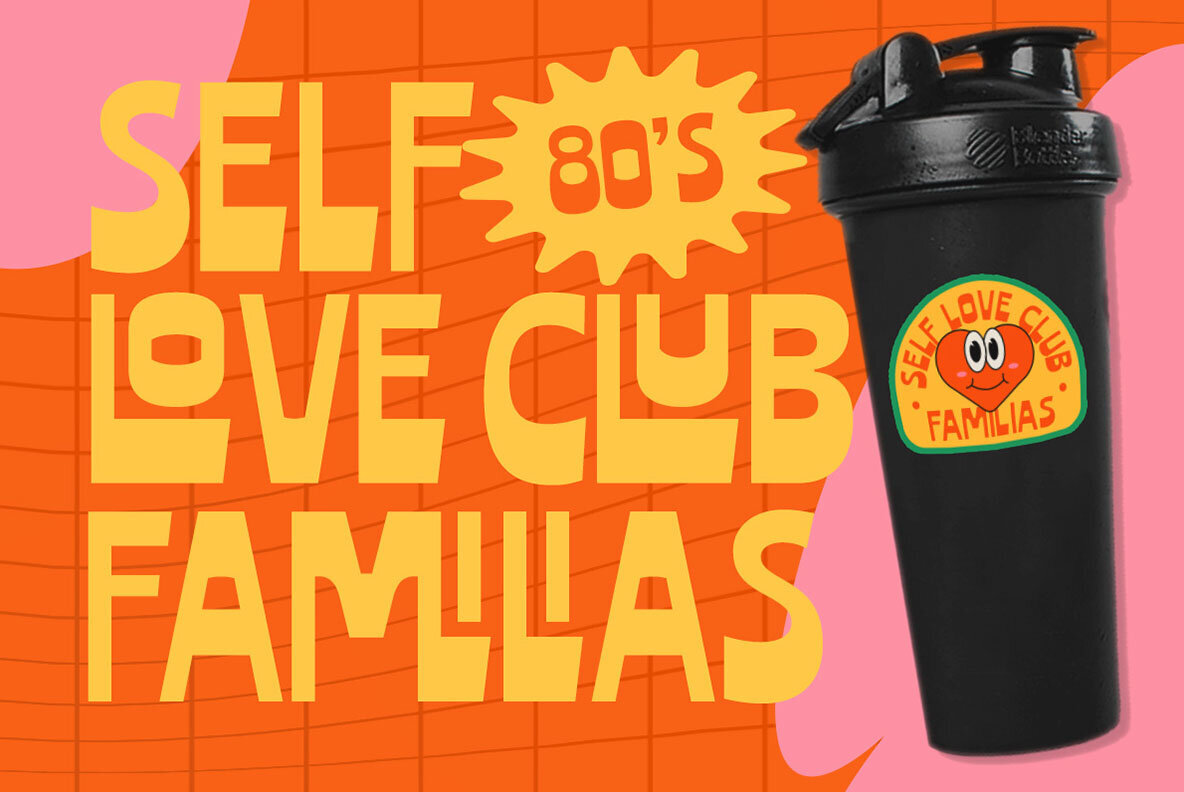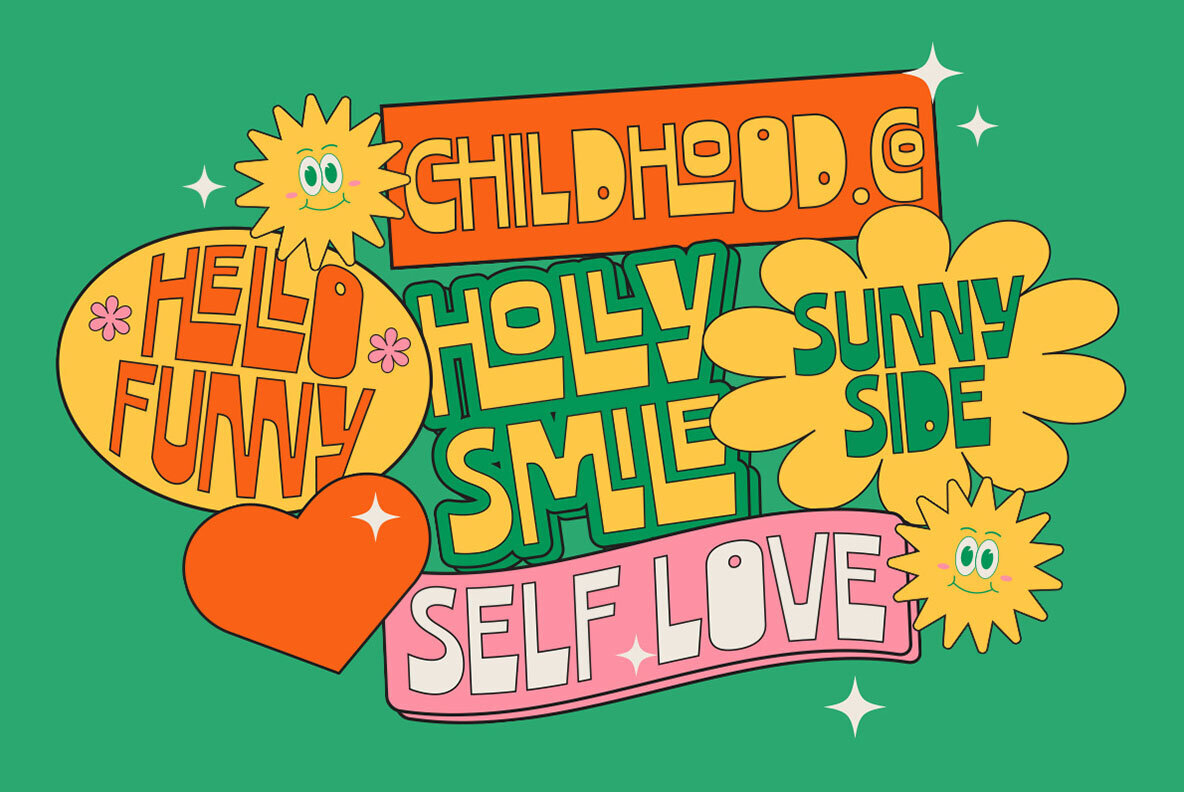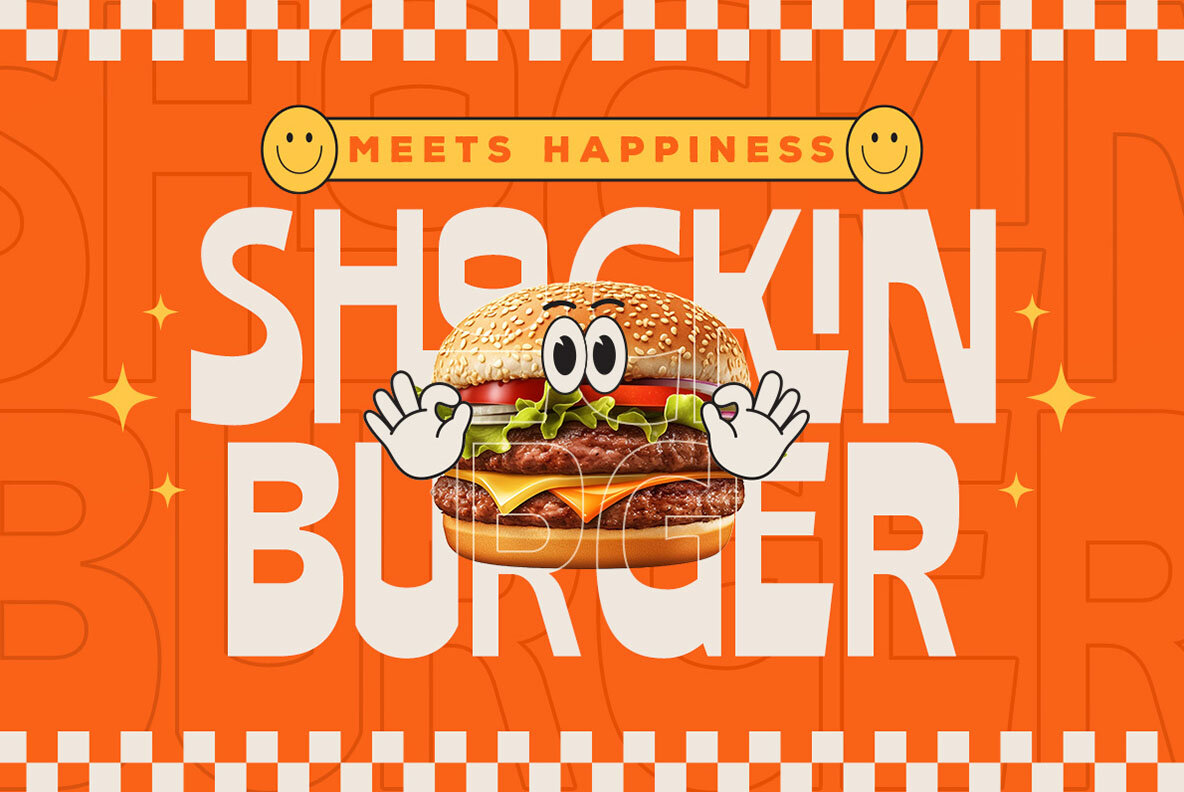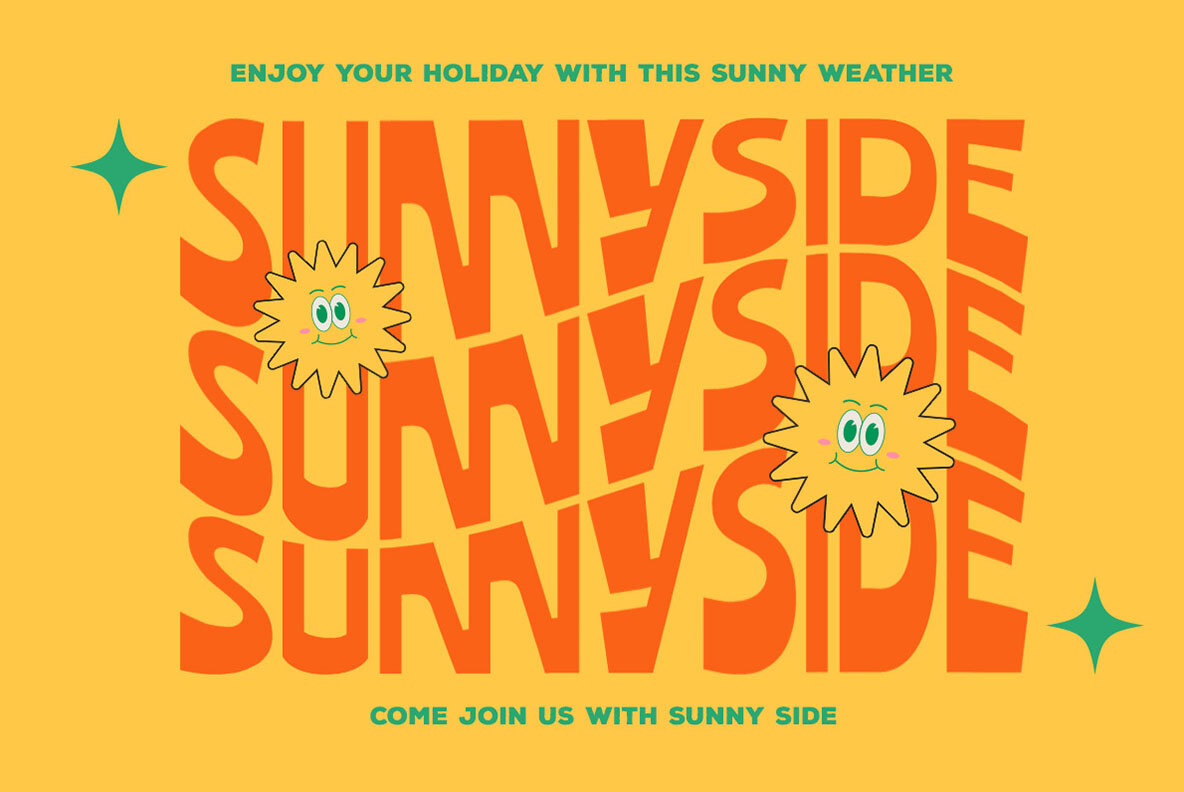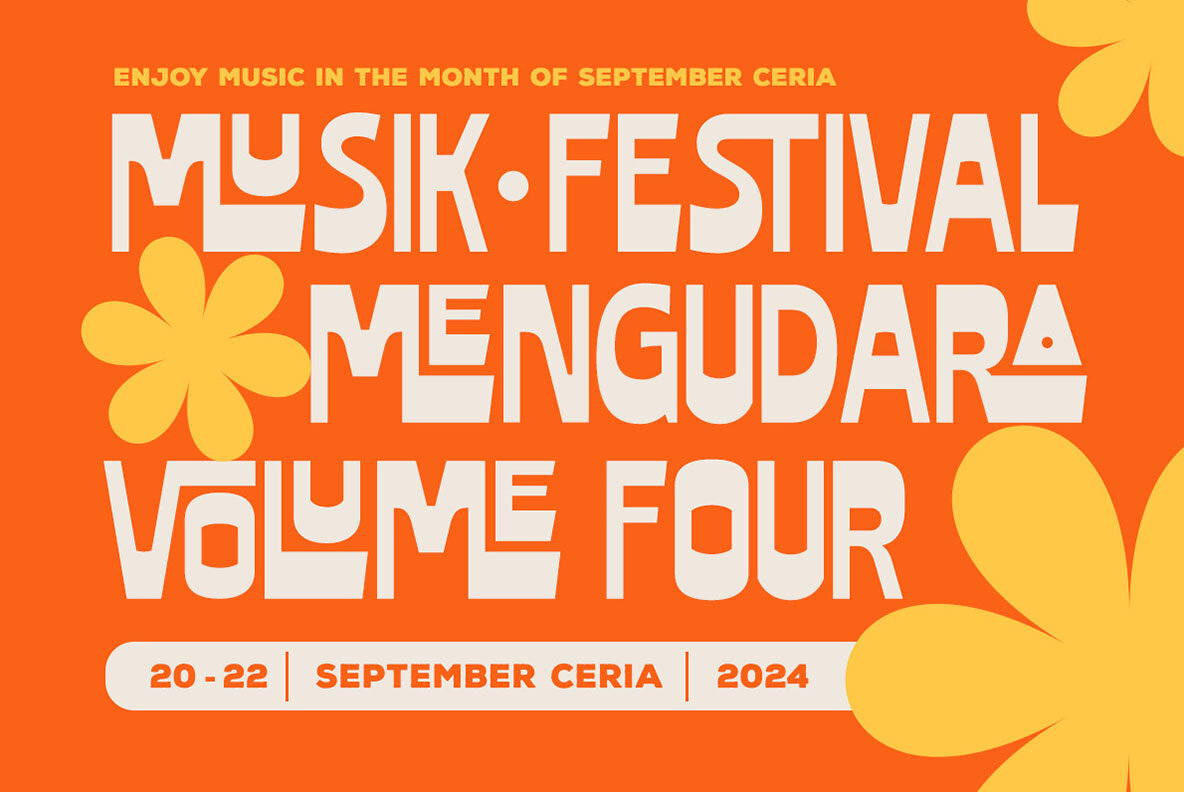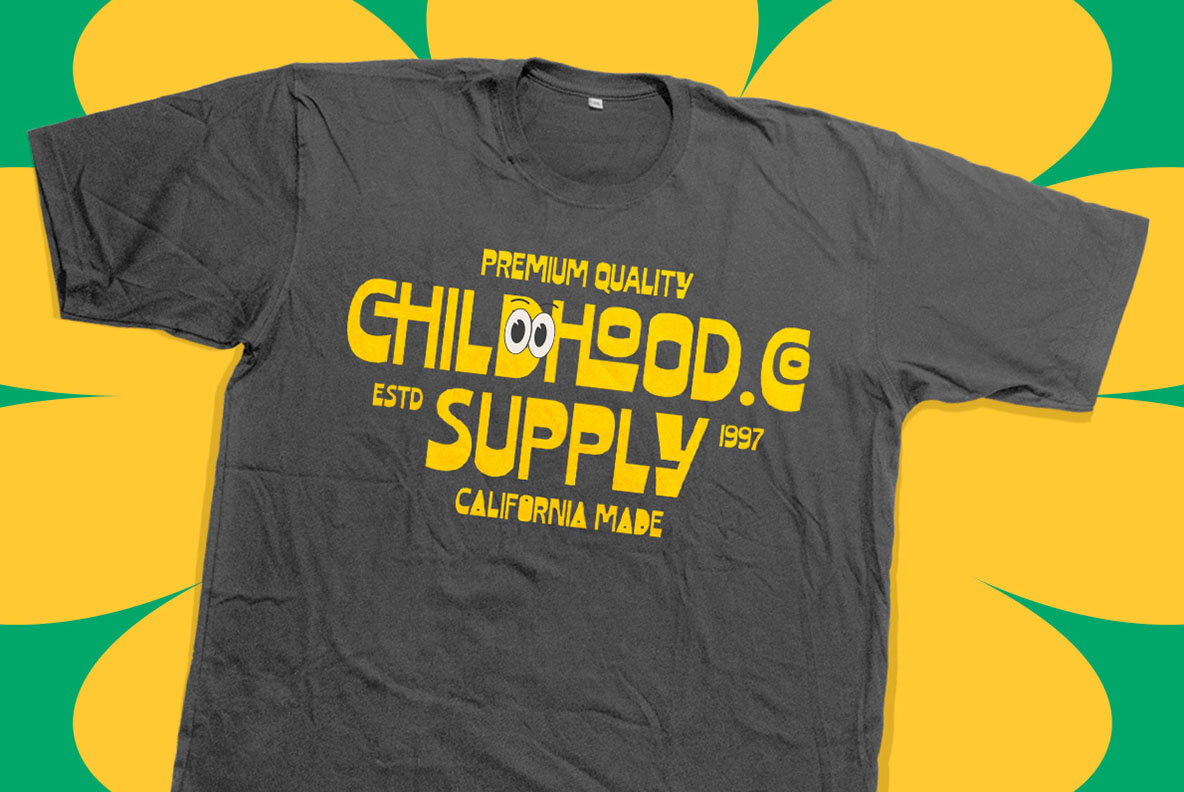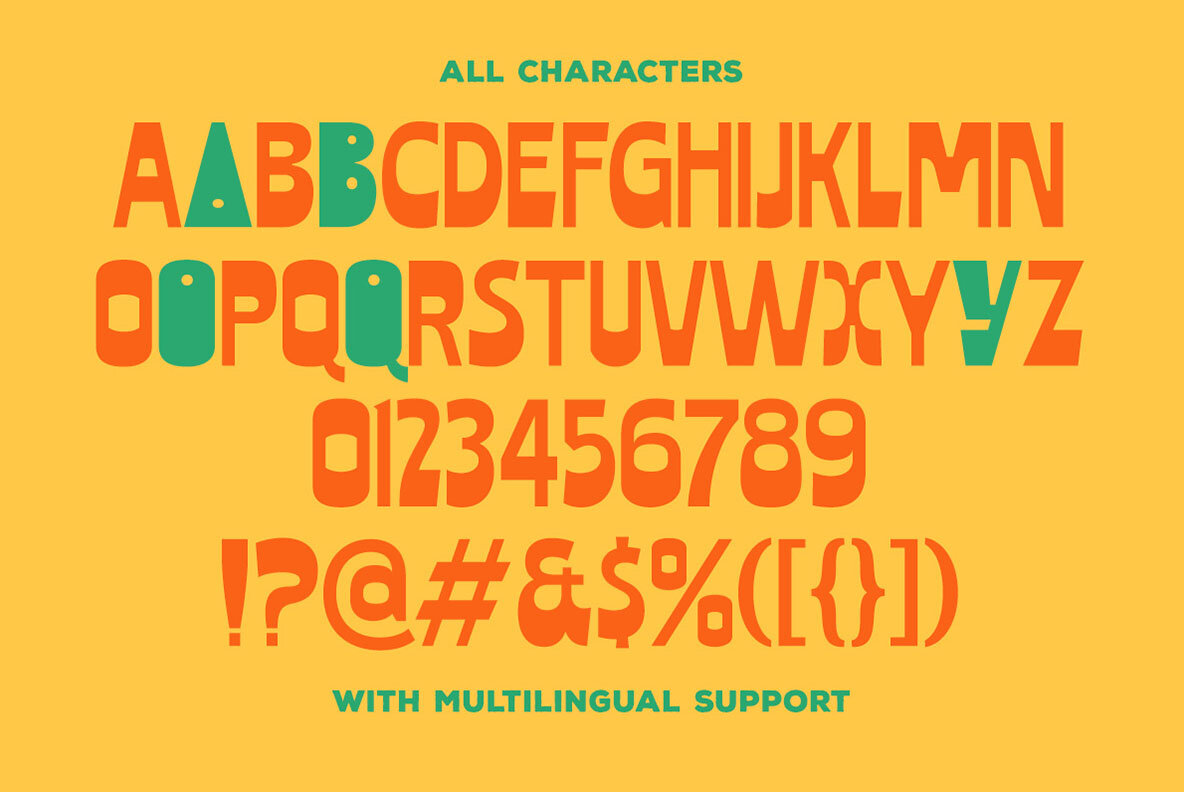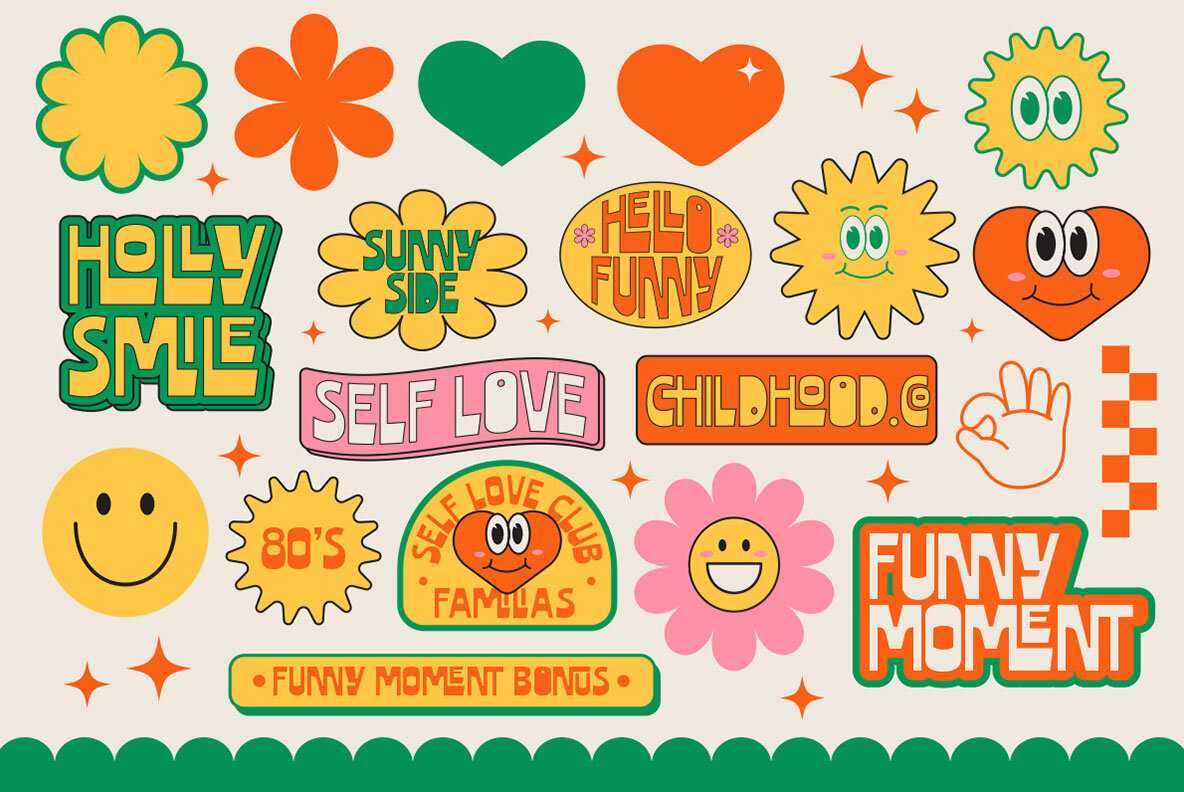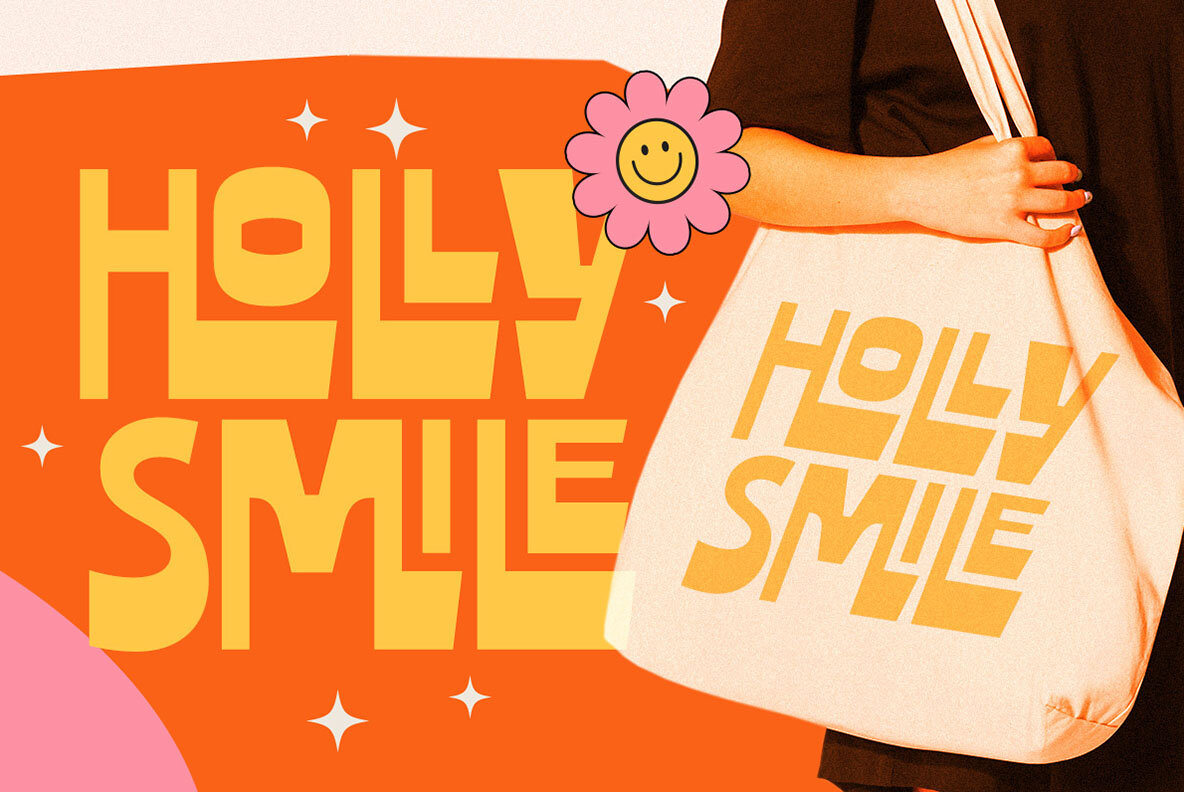
Funny Moment Font
Funny Moment is a retro display font which will bring you back to 60s feel. This font perfectly made to be applied especially in logo, and the other various formal forms such as invitations, labels, logos, magazines, books, greeting / wedding cards, packaging, fashion, make up, stationery, novels, labels or any type of advertising purpose. Features : We highly recommend using a program that supports OpenType features and Glyphs panels like many of Adobe apps and Corel Draw, so you can see and access all Glyph variations.